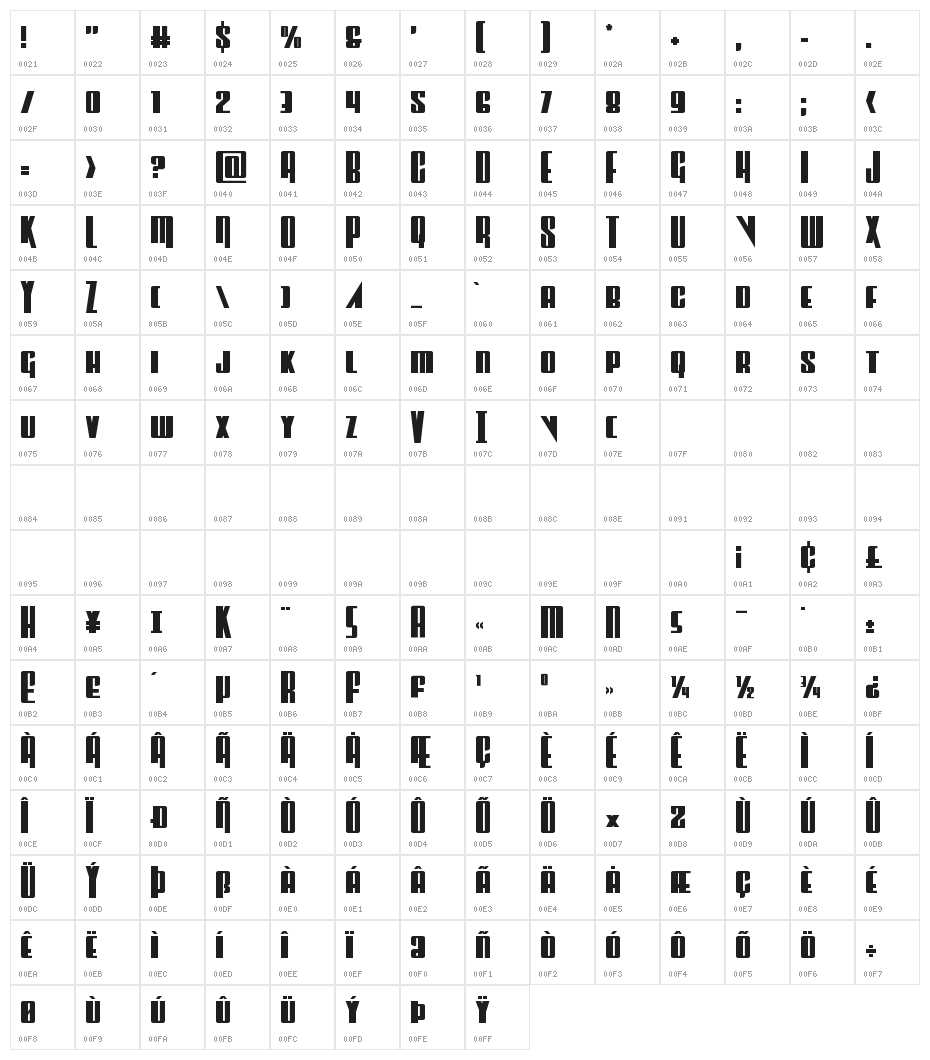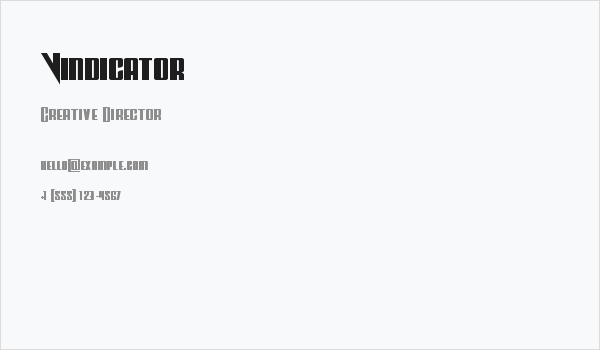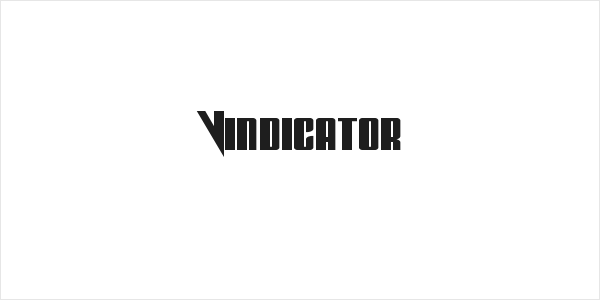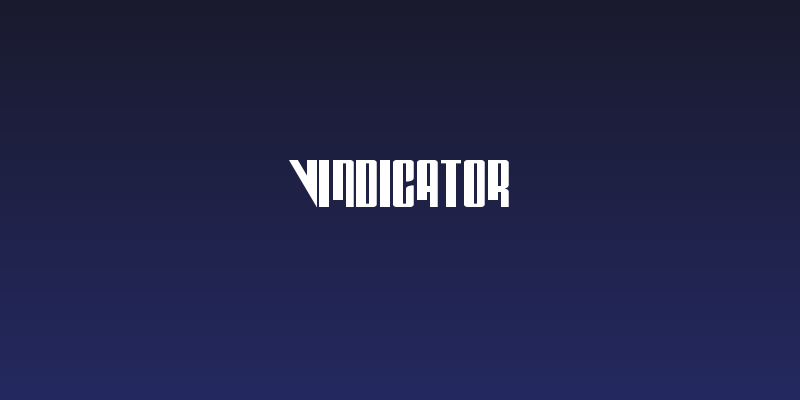
Vindicator Font
Vindicator Description
This font exhibits a bold and assertive style with strong geometric shapes and a blocky appearance. The characters are uniformly wide, giving it a powerful and commanding presence. The uppercase letters are particularly striking, with sharp angles and a consistent height. The lowercase letters maintain the same boldness, ensuring readability while preserving the font's distinctive style. The numerals are equally robust, matching the overall aesthetic. Special characters are designed to complement the boldness, making this font suitable for impactful designs.
| Proposed Projects | Ideal for posters, headlines, logos, and branding materials that require a strong visual impact. |